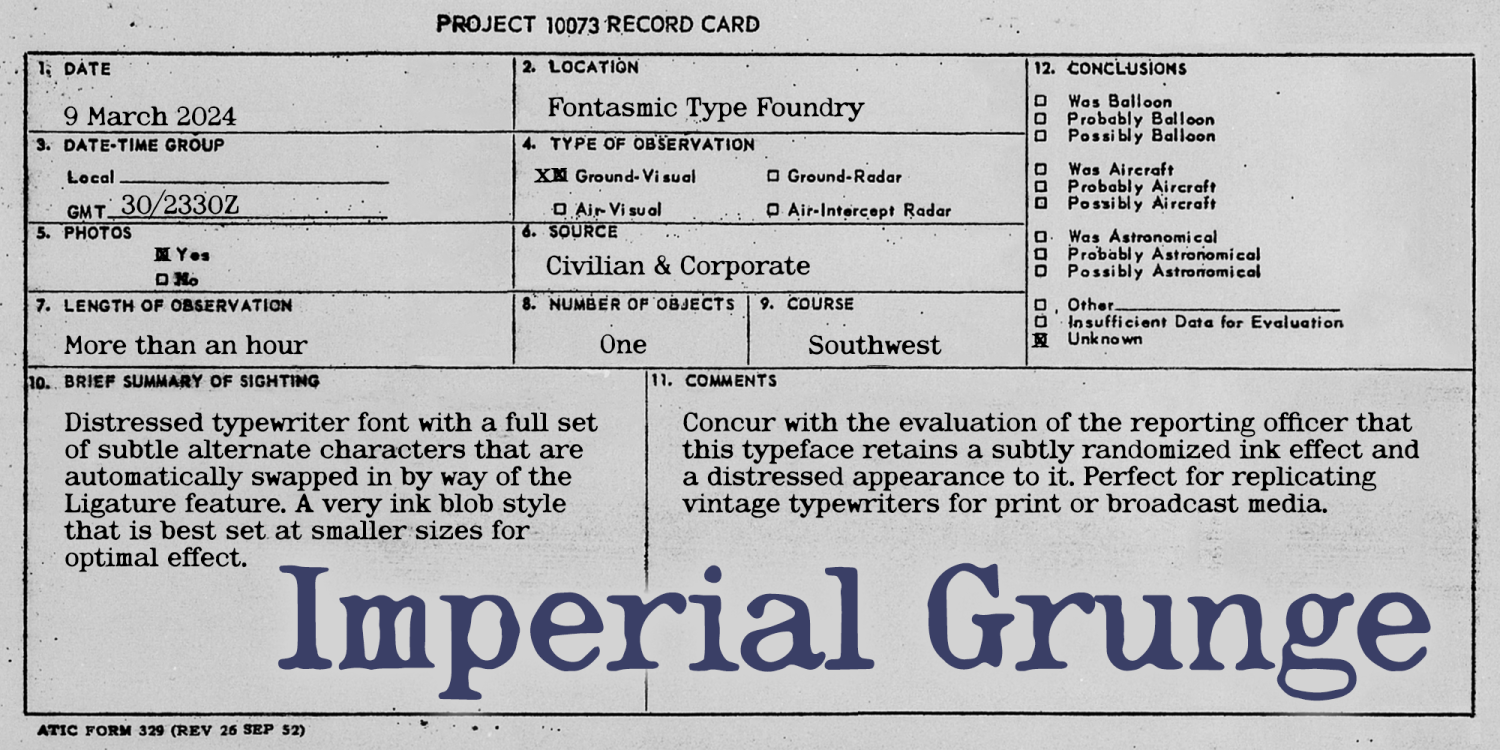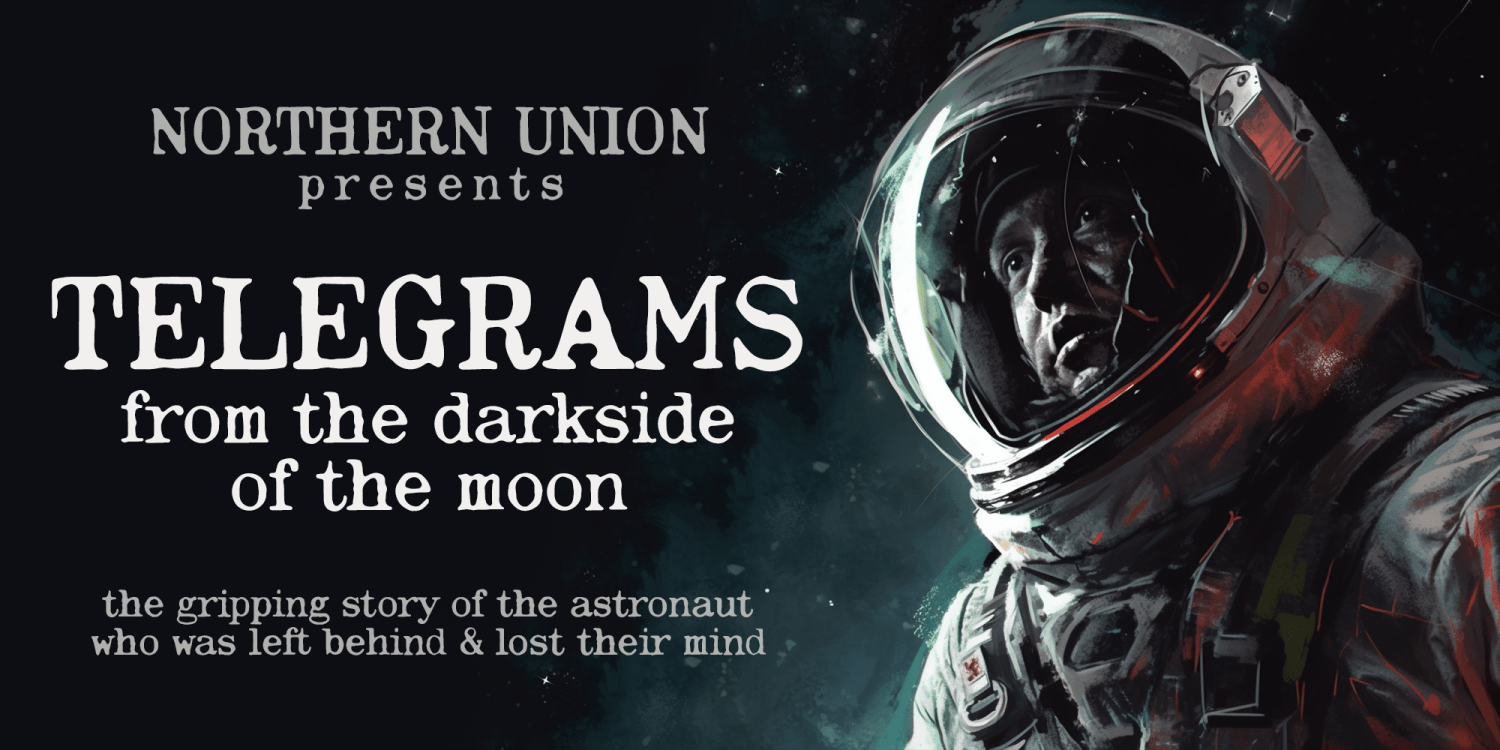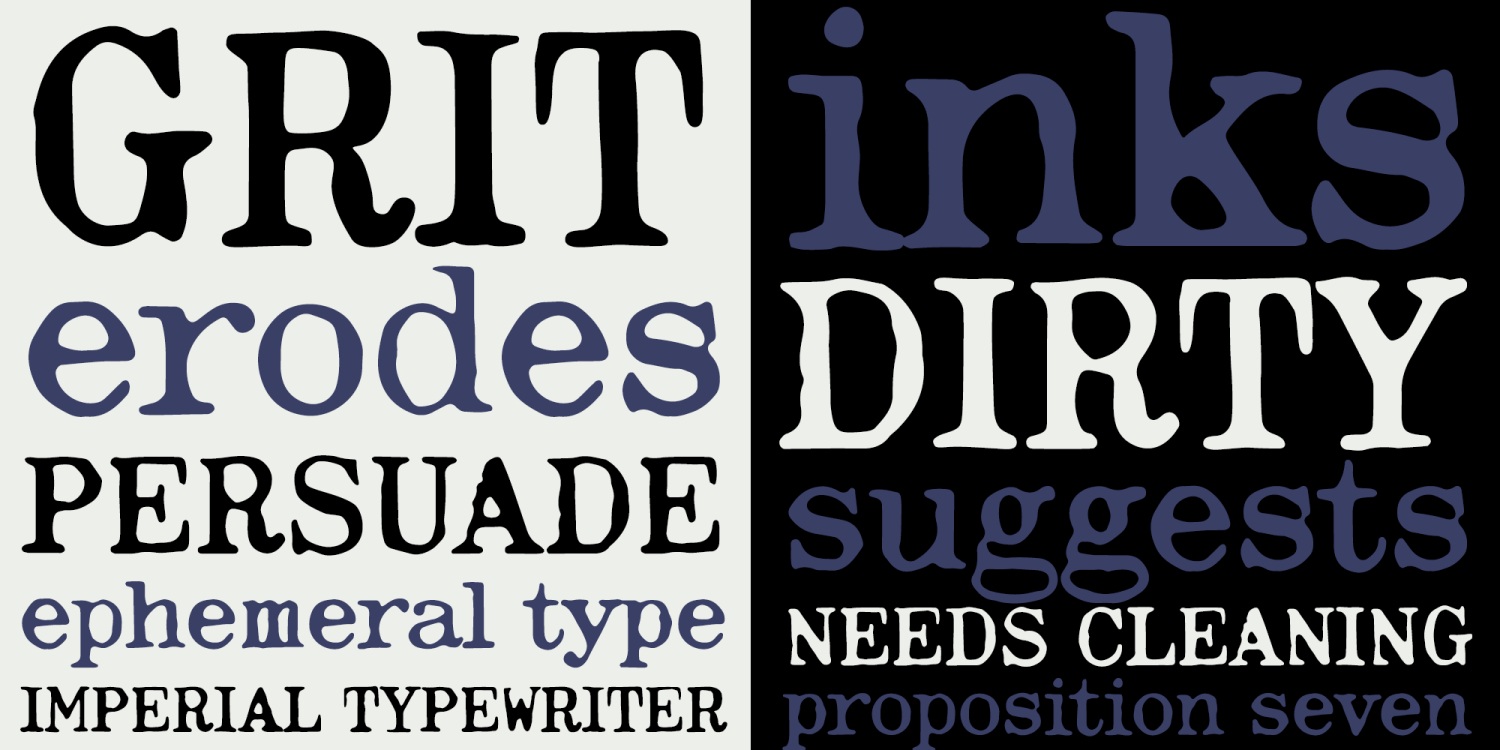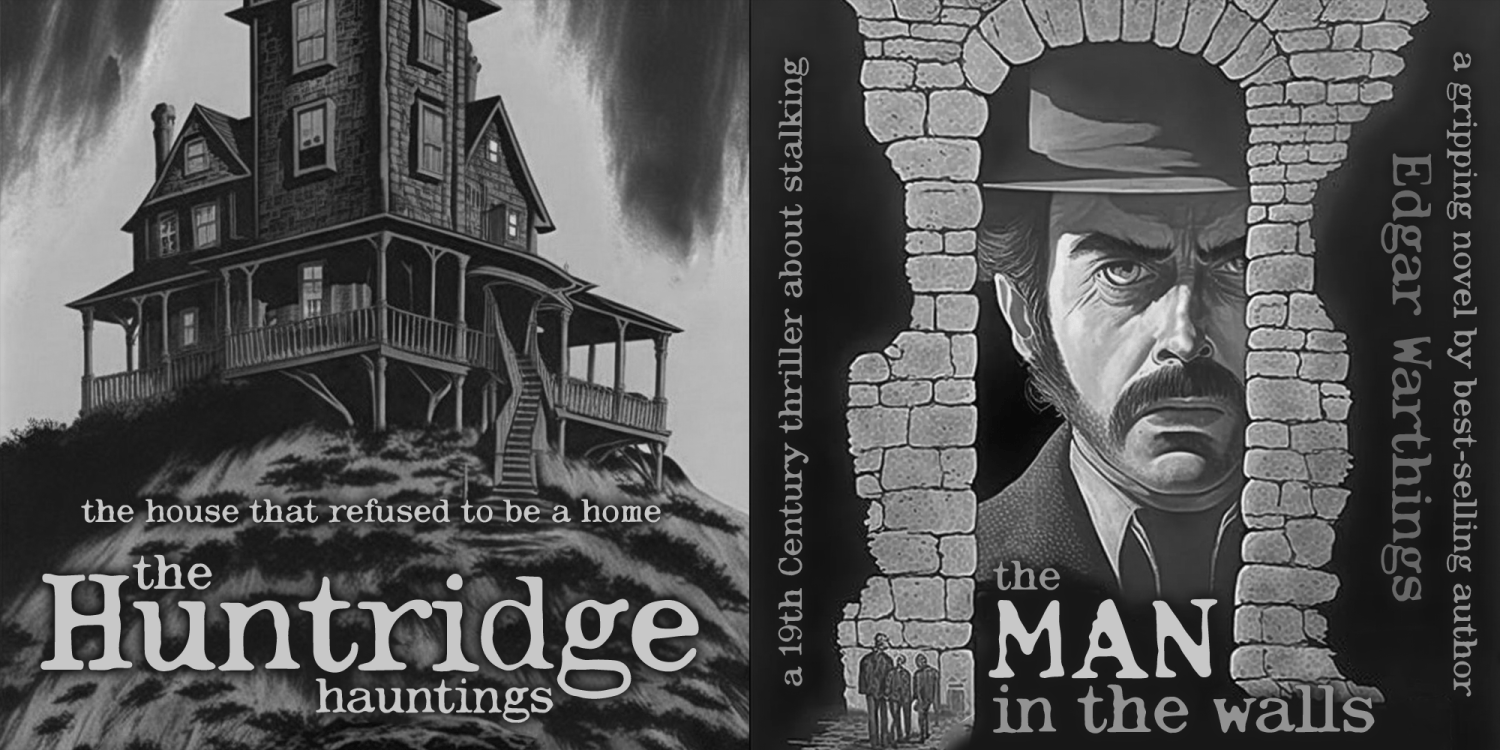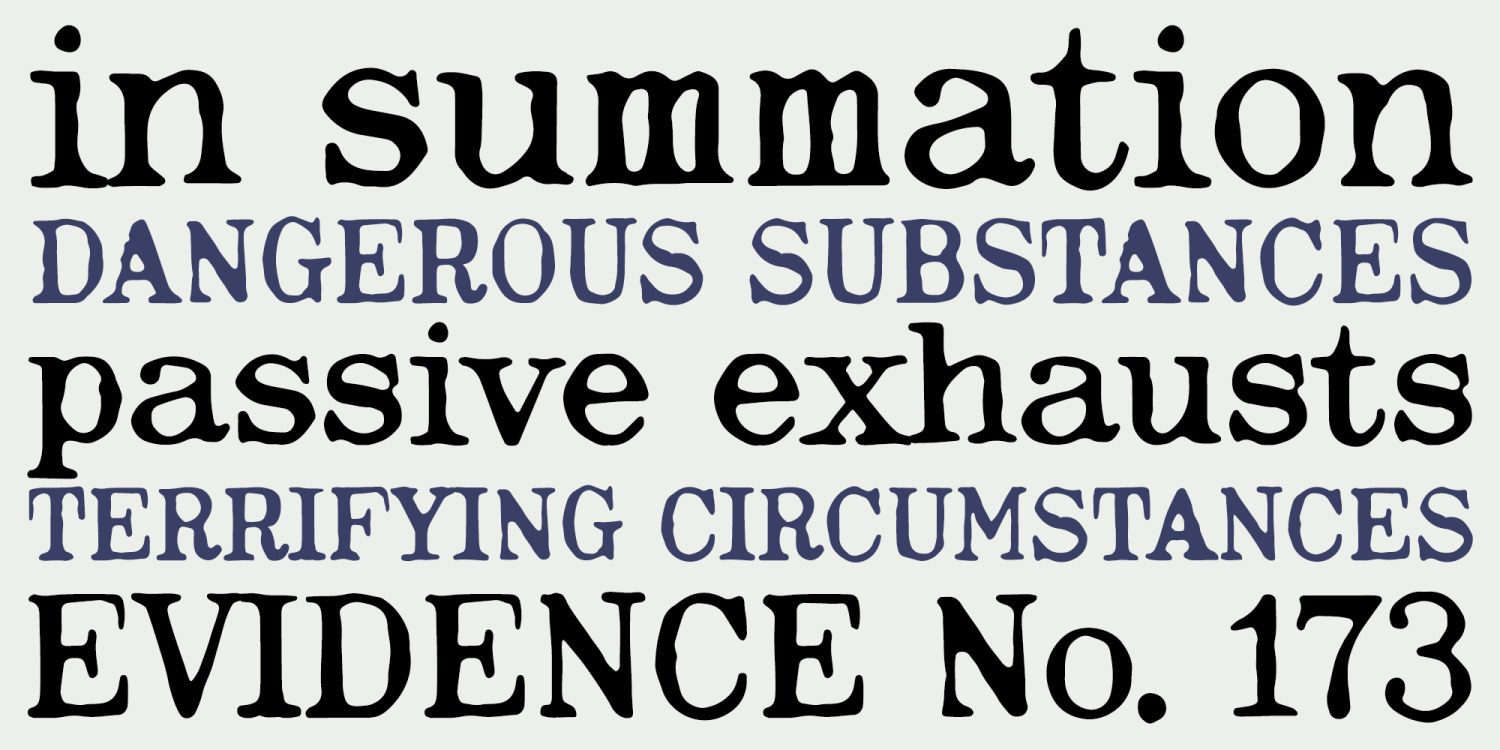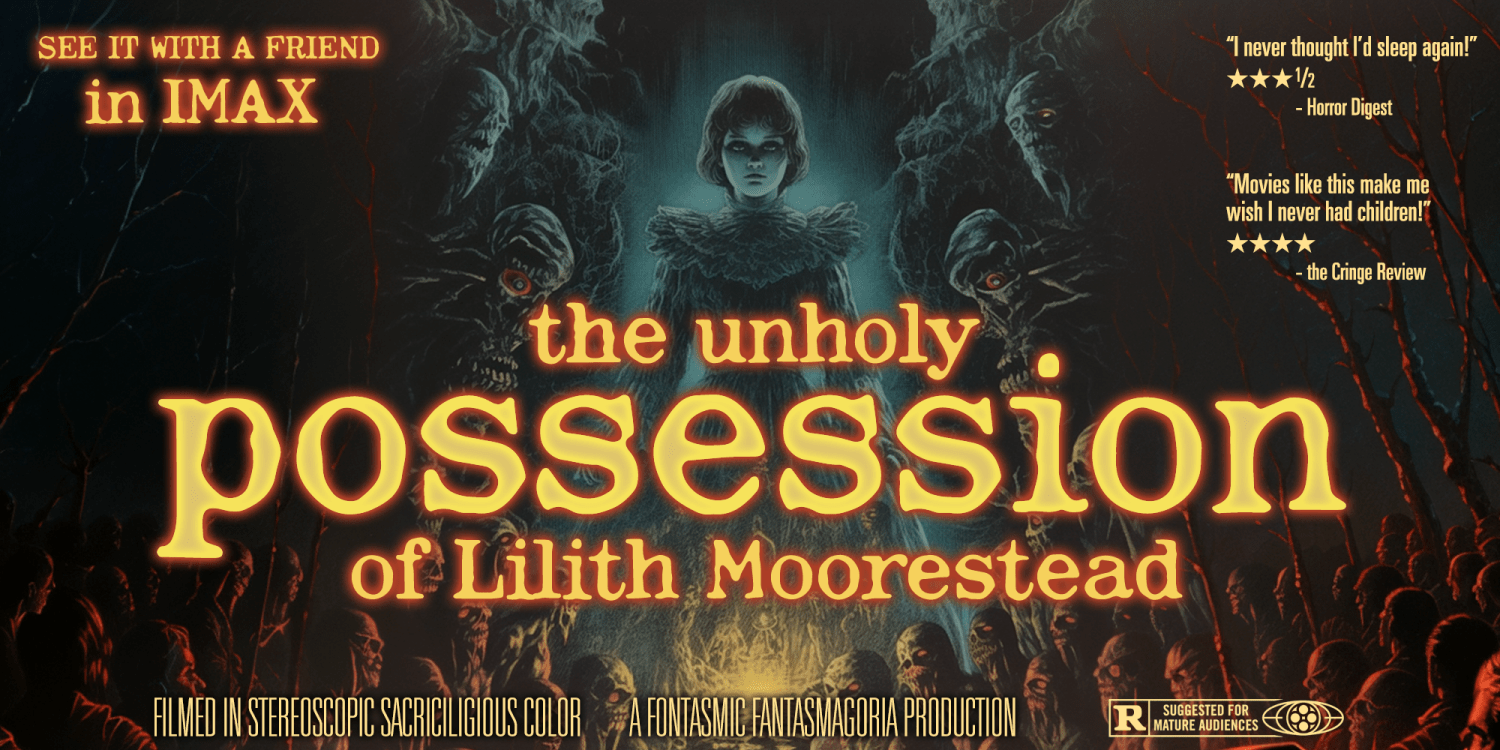
Imperial Grunge
Imperial Grunge is a messy, over-inked typewriter font inspired by the grime and character of an old Imperial machine—blotchy impressions, clogged counters, uneven inking, and all. It delivers that slimy, grungy, ribbon-soaked texture that makes vintage typing feel human, imperfect, and alive, translating the charm of battered paper artifacts into a dependable digital font.
To help your typesetting feel less repetitive and more authentically “typed,” Imperial Grunge includes an alternate set of capitals and lowercase characters that automatically swap in through the ligatures feature, creating a subtle randomized effect without extra work. The result is a more organic rhythm across words and lines, perfect for designs that need believable analog variation rather than sterile repetition.
Imperial Grunge shines at smaller sizes where the rough inking and worn texture reads like true vintage type, but it can also bring bold character to headlines when you want gritty mechanical flavor. Use it for punk posters, horror or thriller titling, book covers, editorial pull quotes, underground zines, dossier-style graphics, archival ephemera, distressed branding, and any design that needs raw typewriter attitude with built-in variation.